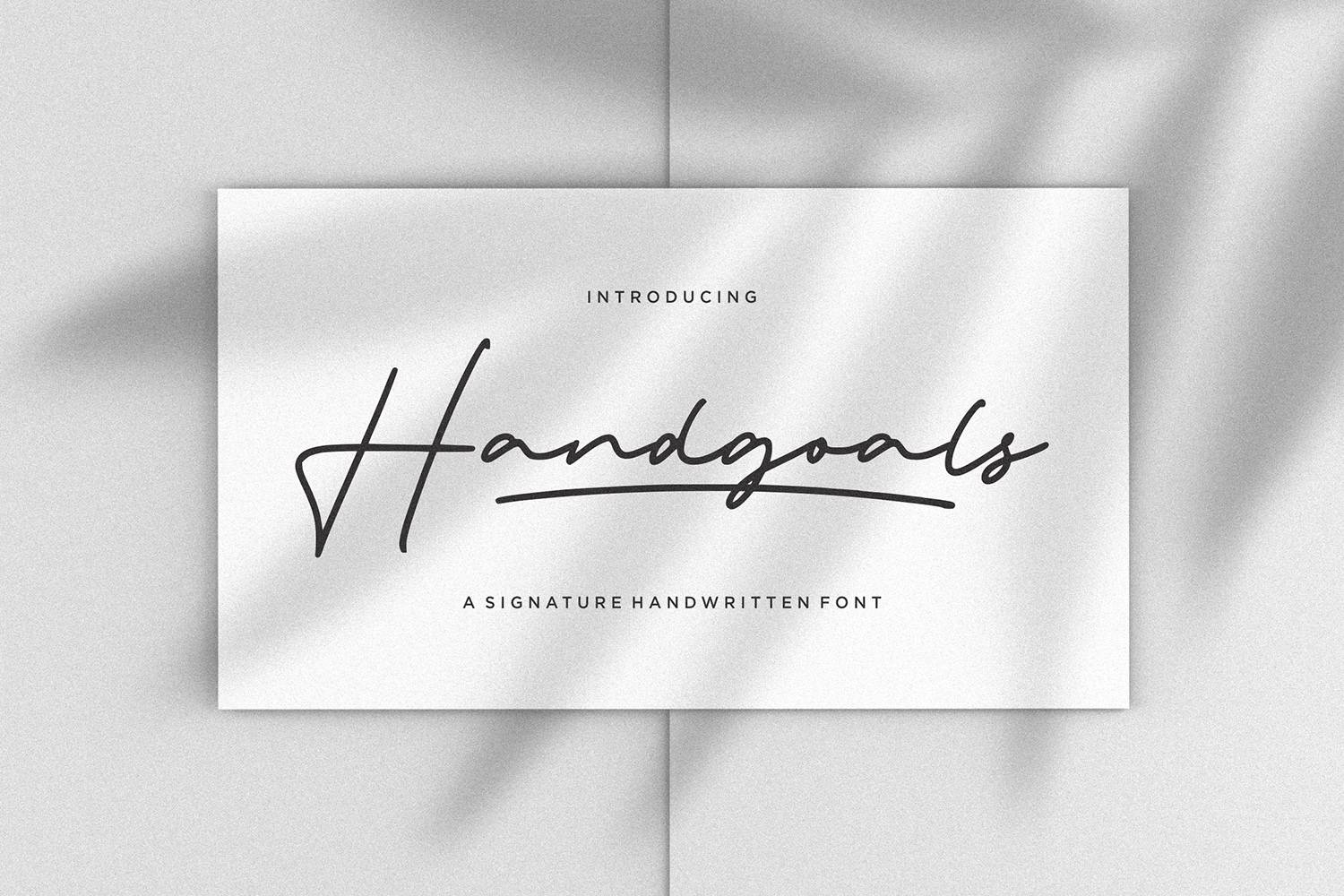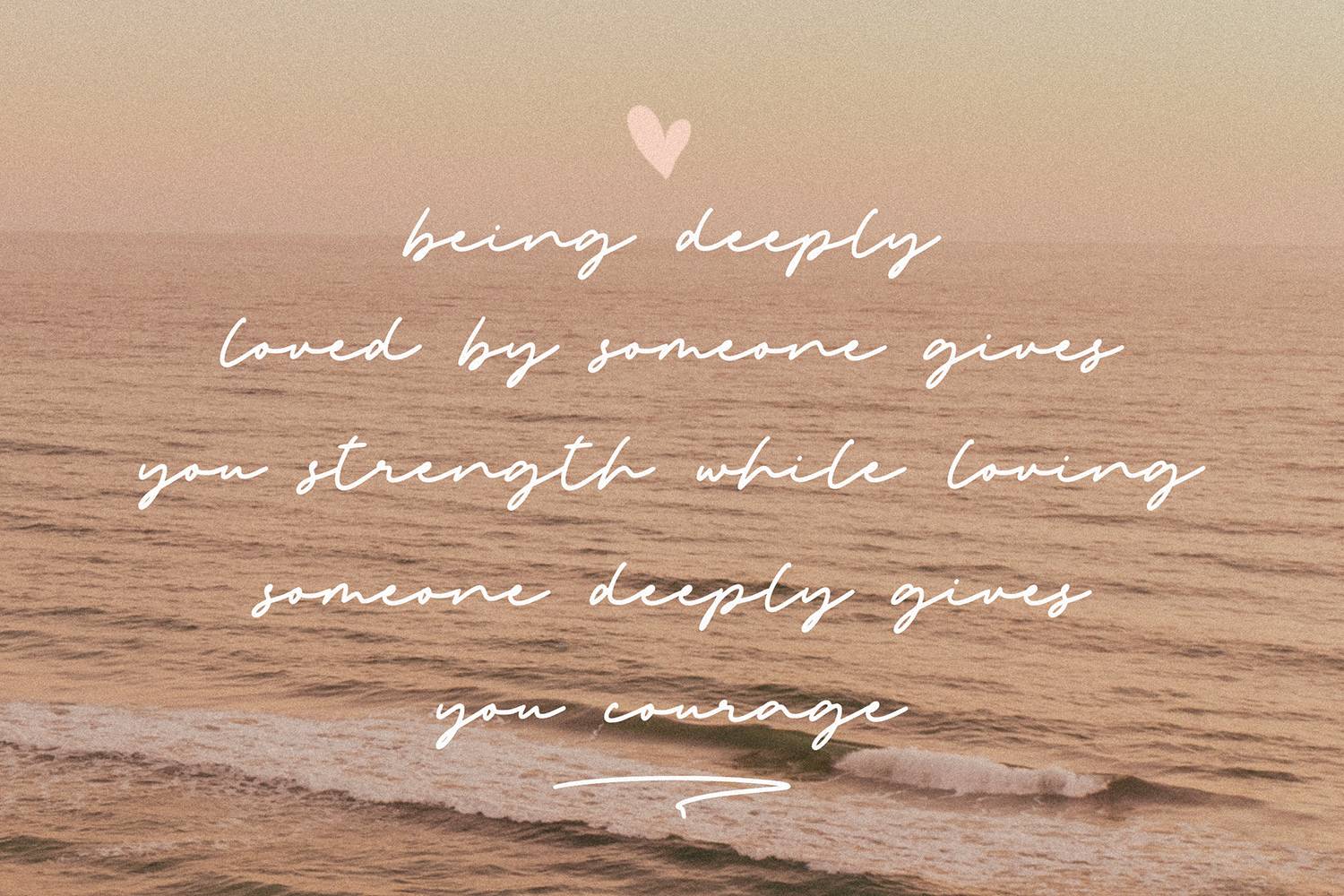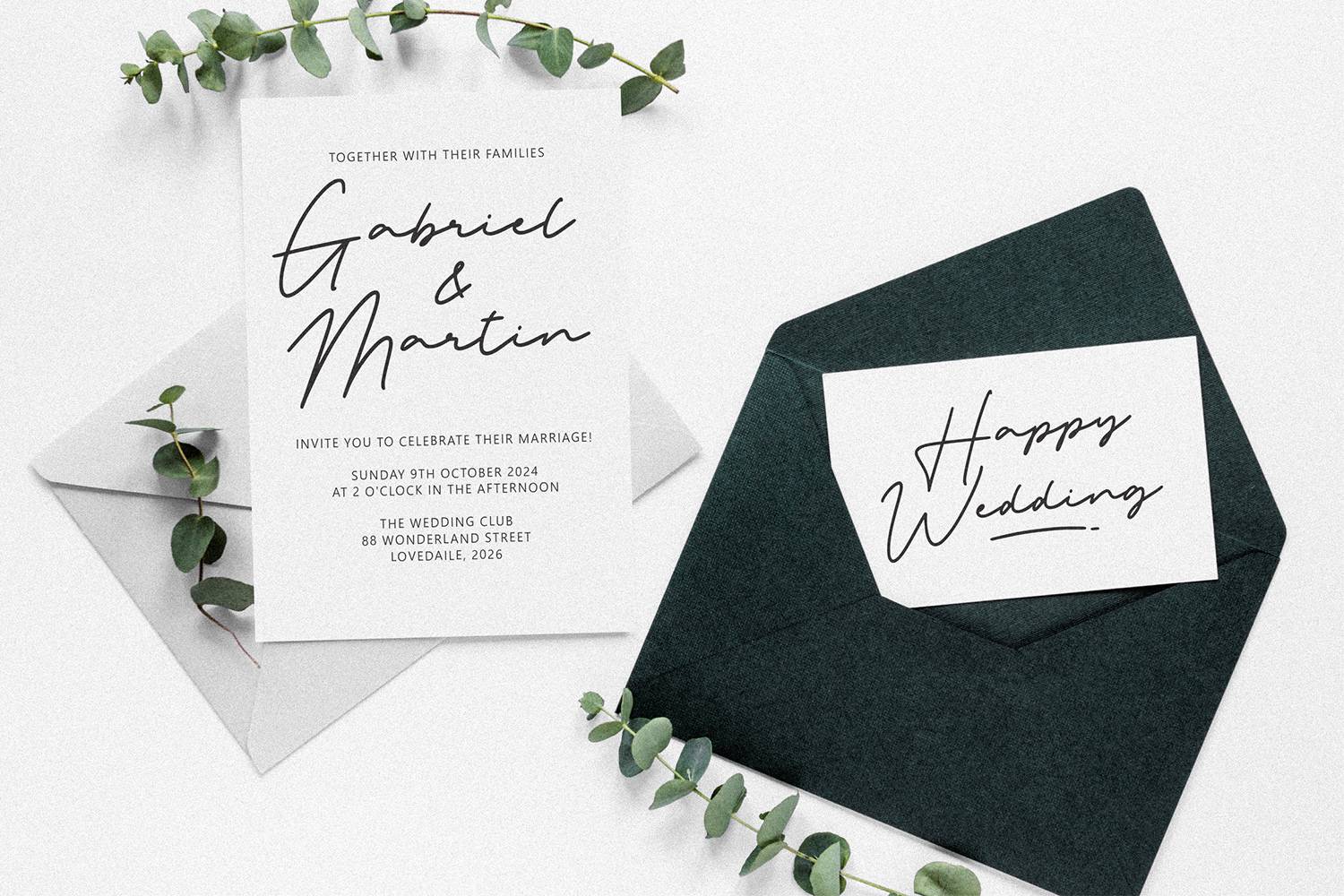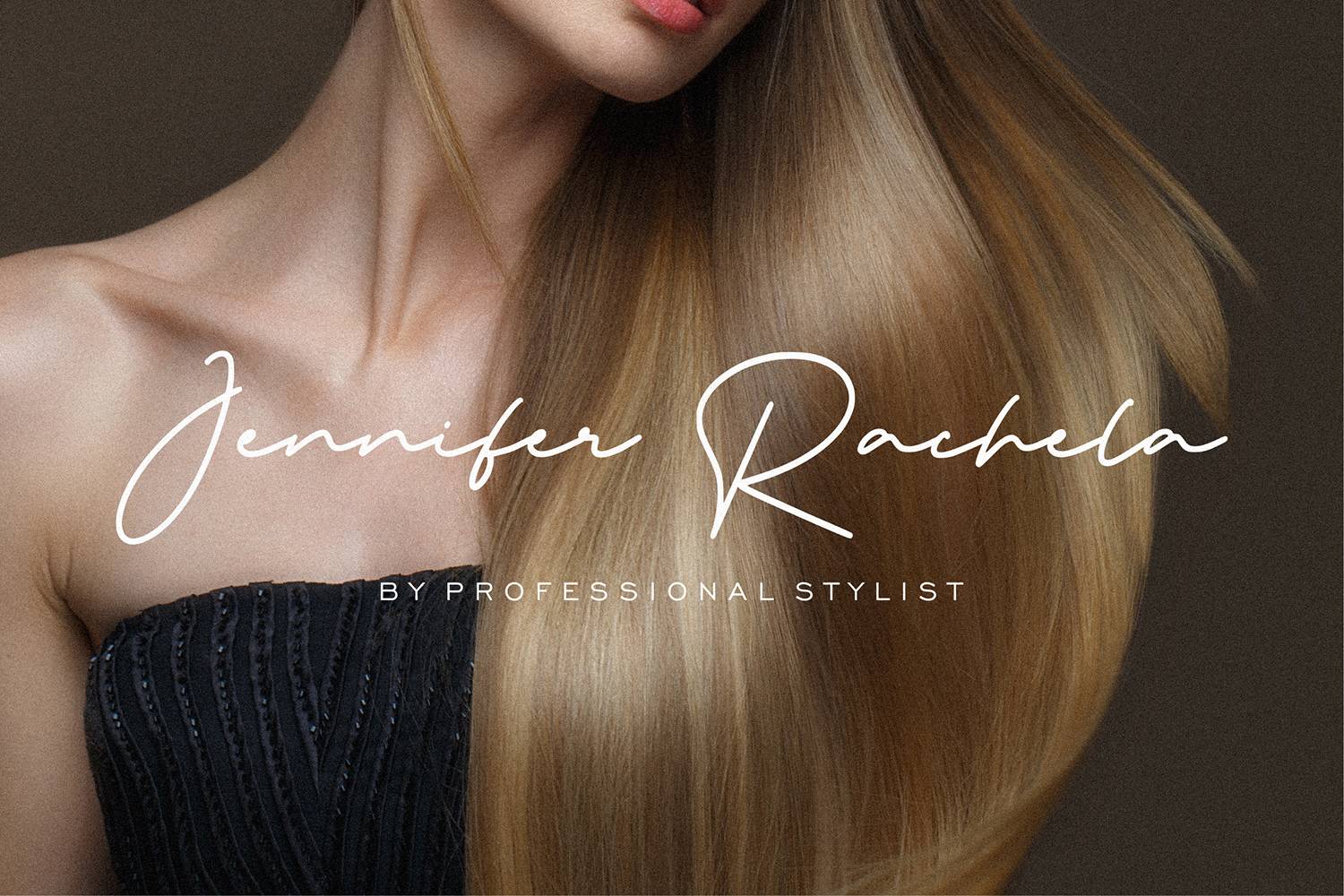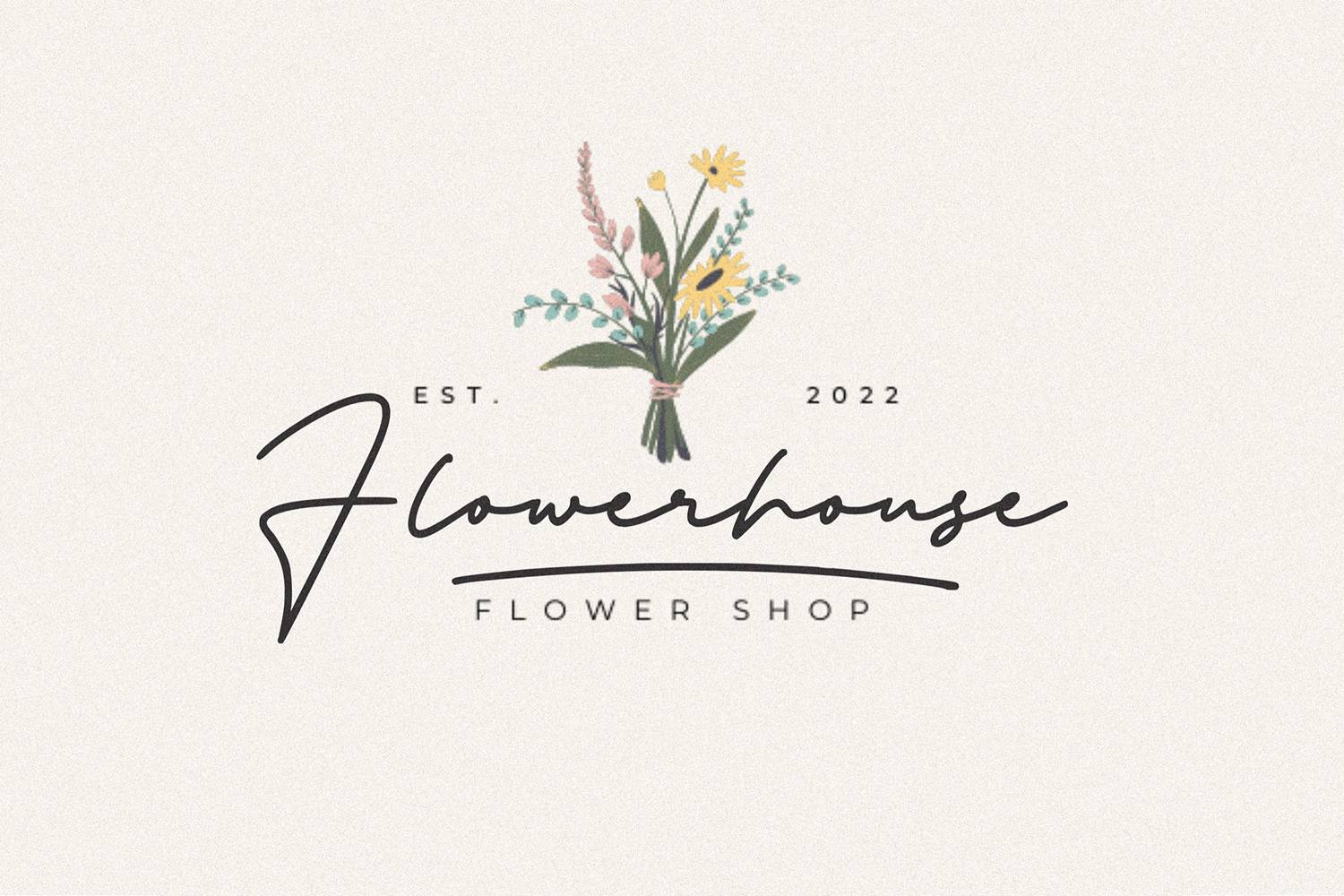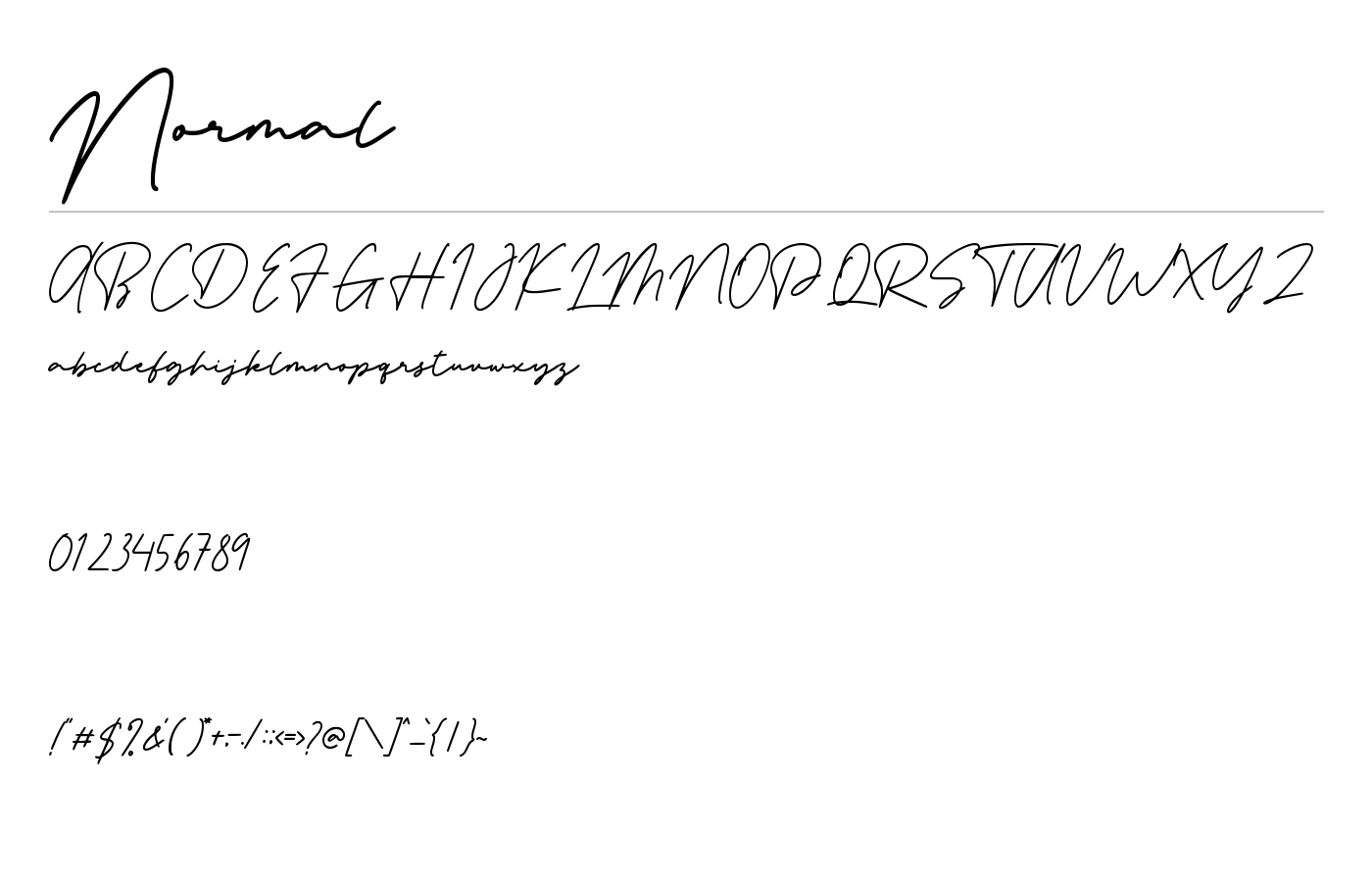
Handgoals is a delicate, handwritten script font featuring slender, flowing strokes that create an elegant and personal touch. Its light weight and natural cursive style make it perfect for invitations, branding, and designs that seek to convey sophistication and warmth. This font works well in projects where a refined, yet approachable, handwritten look is desired.
Handgoals Font